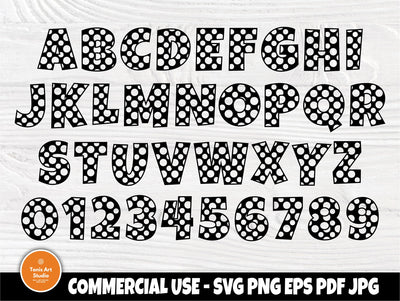
Polka Dot Font SVG | Polka Dot Alphabet | Alphabet Svg | Polka Dot Monogram | Svg Files for Cricut and Silhouette | Polka Dot Letters Svg
* Beautiful Polka Dot Font, Digital Download in SVG, PNG, EPS, PDF, JPG format. Polka Dot Font SVG | Polka Dot Alphabet | Alphabet Svg | Polka Dot Monogram | Svg Files for Cricut and Silhouette | Polka Dot Letters Svg.